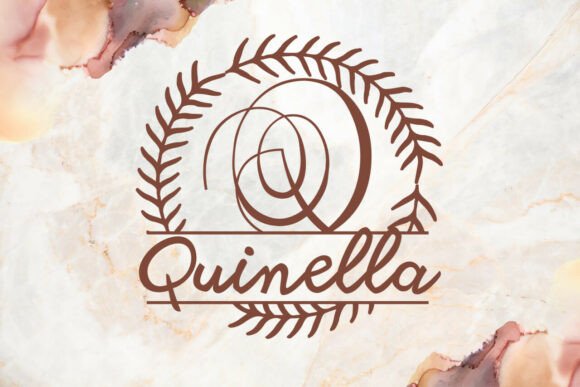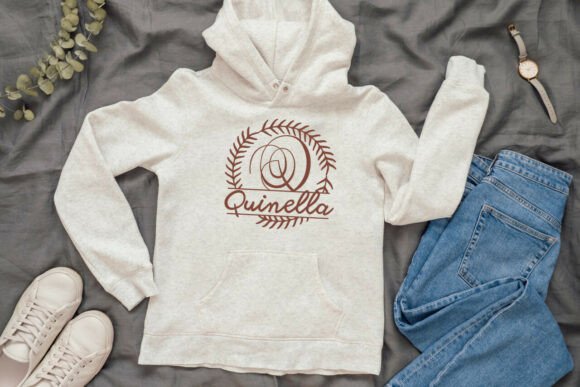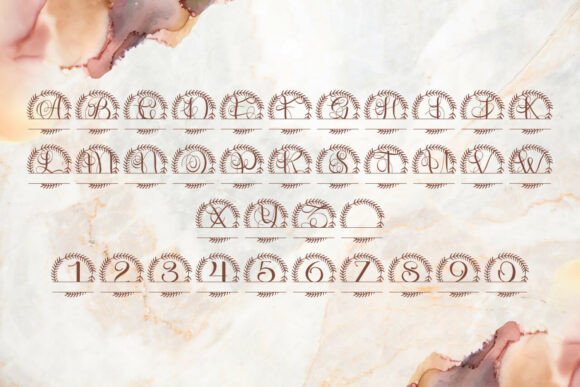
Rosaver Split Monogram Font – Free Download
Introduction to Rosaver Split Monogram Font
Meet Rosaver Split Monogram Font turns any initial into a romantic, name-ready emblem in seconds.
The letterforms feel graceful and balanced, while a clean horizontal split creates space for names, dates, or short words Because spacing stays even and counters remain open, designs look polished on tiny tags, door hangers, tumblers, ornaments, and wall art.
Key Features of Rosaver Split Monogram Font
Why Choose Rosaver Split Monogram Font?
Rosaver Split Monogram Font offers exceptional quality and versatility, making it a valuable addition to your design toolkit. Whether you’re creating for personal projects or commercial use, Rosaver Split Monogram Font delivers professional results.